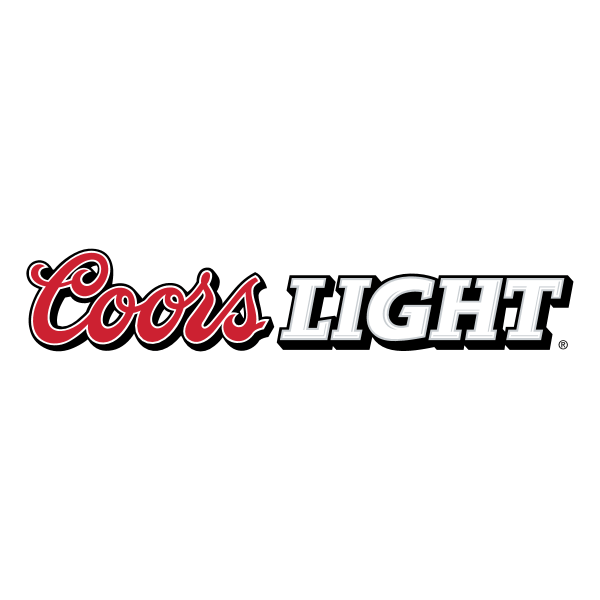
Coors Light Font Similar. I’m looking for the font used for “banquet” in the coors banquet logo. This beer company was founded by miller brewing inc.
In 2005 Michael Hagmann Designed This Font Family.
An svg's size can be increased or decreased without a loss of quality. The design featured light appearing in black in a cursive writing. You could start with something like metroblack #2 and customize it;
Due To Its Natural Ingredients And Natural Taste Many People Like That.
Athletic outfit à € by octotype | thomas boucherie. The font used for the logo of miller is very similar to draft beer font. It’s a script font created by michael hagemann and released by fontmesa font foundry since 16 december 2004.
This font is basically used for the logo of miller lite that is very similar to draft beer. The wordmark was designed in two levels with coors printed in red color in a script type font. It is a popular typeface that comes in a highly legible design with attractive and keen features.
I’m Looking For The Font Used For “Banquet” In The Coors Banquet Logo.